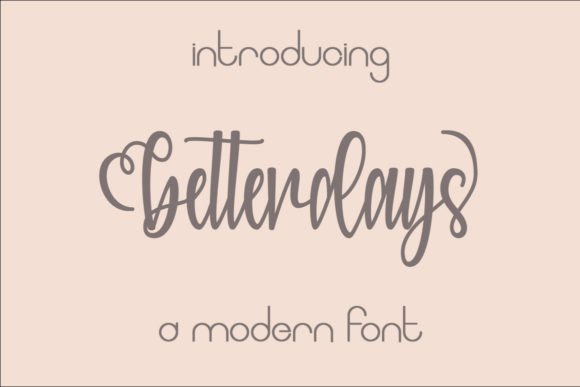
The Magic of Betterdays Font: A Designer’s New Best Friend
I still remember the frustration of working on a project, hours spent crafting the perfect design, only to realize that the font I chose just wasn’t cutting it. The client wanted something more personal, more whimsical, and I was stuck. That’s when I stumbled upon Betterdays Font, and let me tell you, it was love at first sight! 💕
This enchanting handwritten font has been a game-changer for me, and I’m excited to share its magic with you. With its versatile nature, Betterdays can be used for a wide range of applications, from greeting cards to headlines, and even social media graphics.
What I Love About Betterdays Font
- ✨ PUA encoded for easy access to glyphs and swashes
- ✅ Highly versatile and adaptable to various design projects
- 💫 Beautifully crafted with a personal, handwritten touch
- 📚 Extensive character set for endless creative possibilities
While Betterdays Font is an amazing addition to any design project, there are a few things to keep in mind: 🤔
- ⚠️ Some characters may require manual kerning for optimal results
- ⚠️ Not all platforms support OpenType features, but we’ll get to that later
The Story Behind Betterdays Font
Imagine a designer who loves handwritten fonts and wants to create something special for crafty hobbyists and creative professionals. That’s the story behind Betterdays Font! The designer aimed to craft a font that’s both personal and versatile, with a wide range of applications. And I think they succeeded! 😊
Q: What is PUA encoding, and why is it important?
A: PUA (Private Use Area) encoding allows designers to access a wide range of glyphs and swashes, making it easier to create unique and personalized designs.